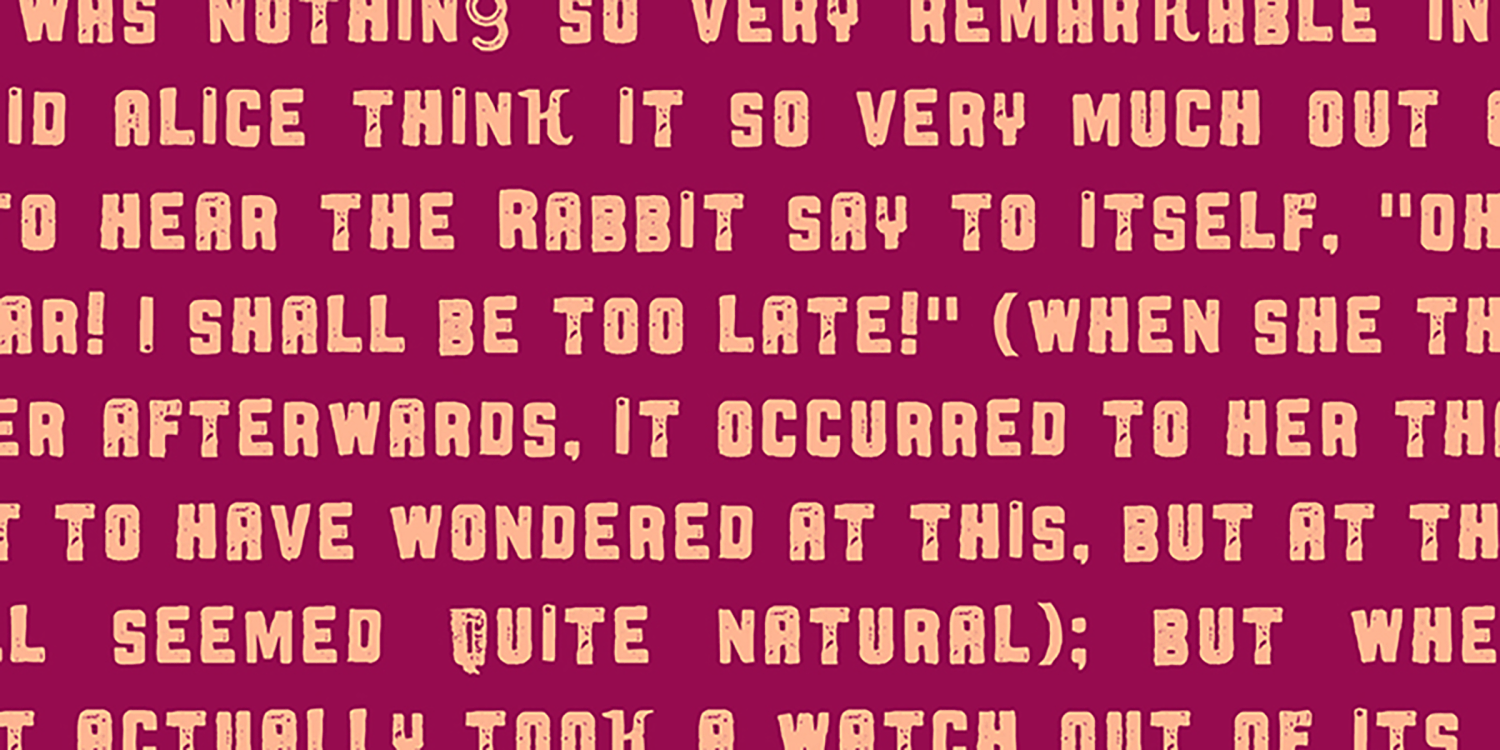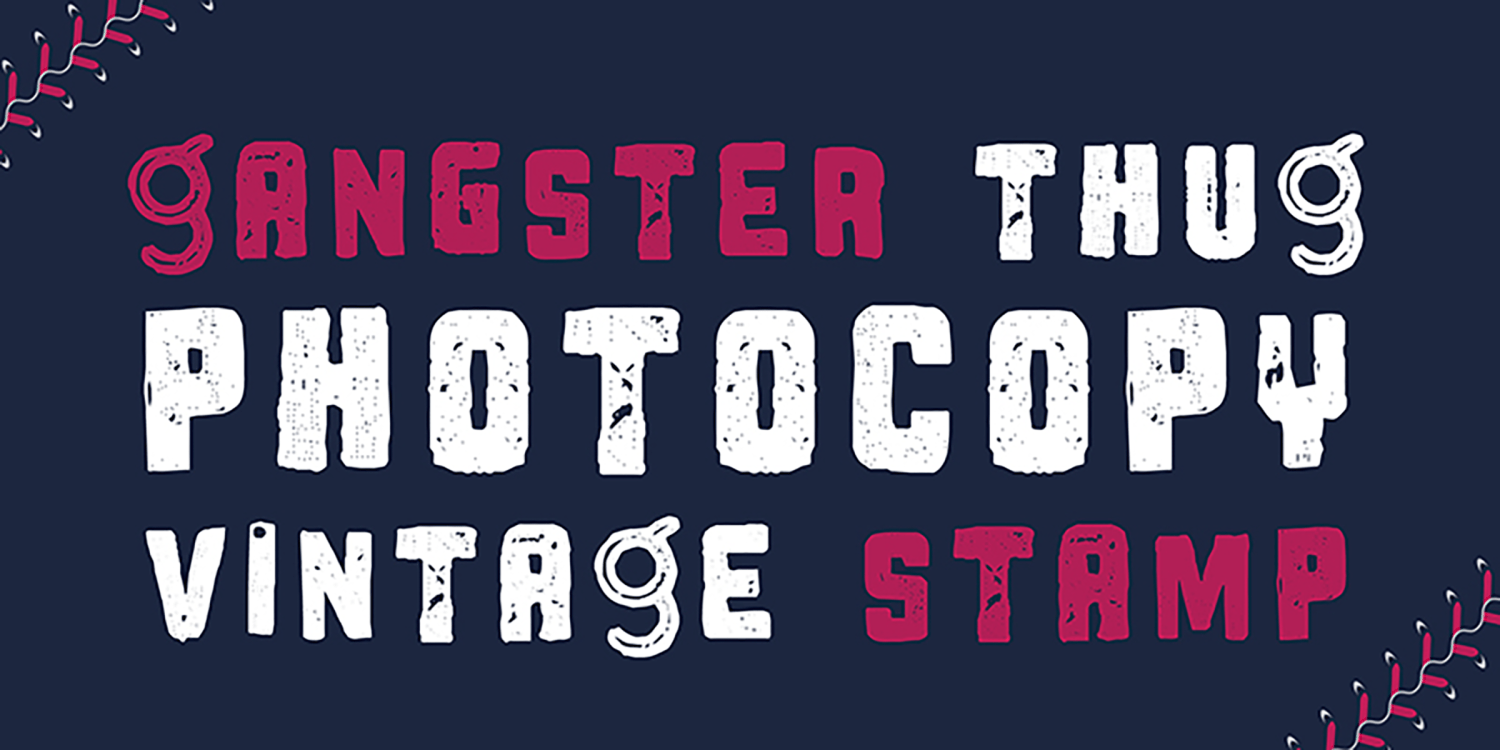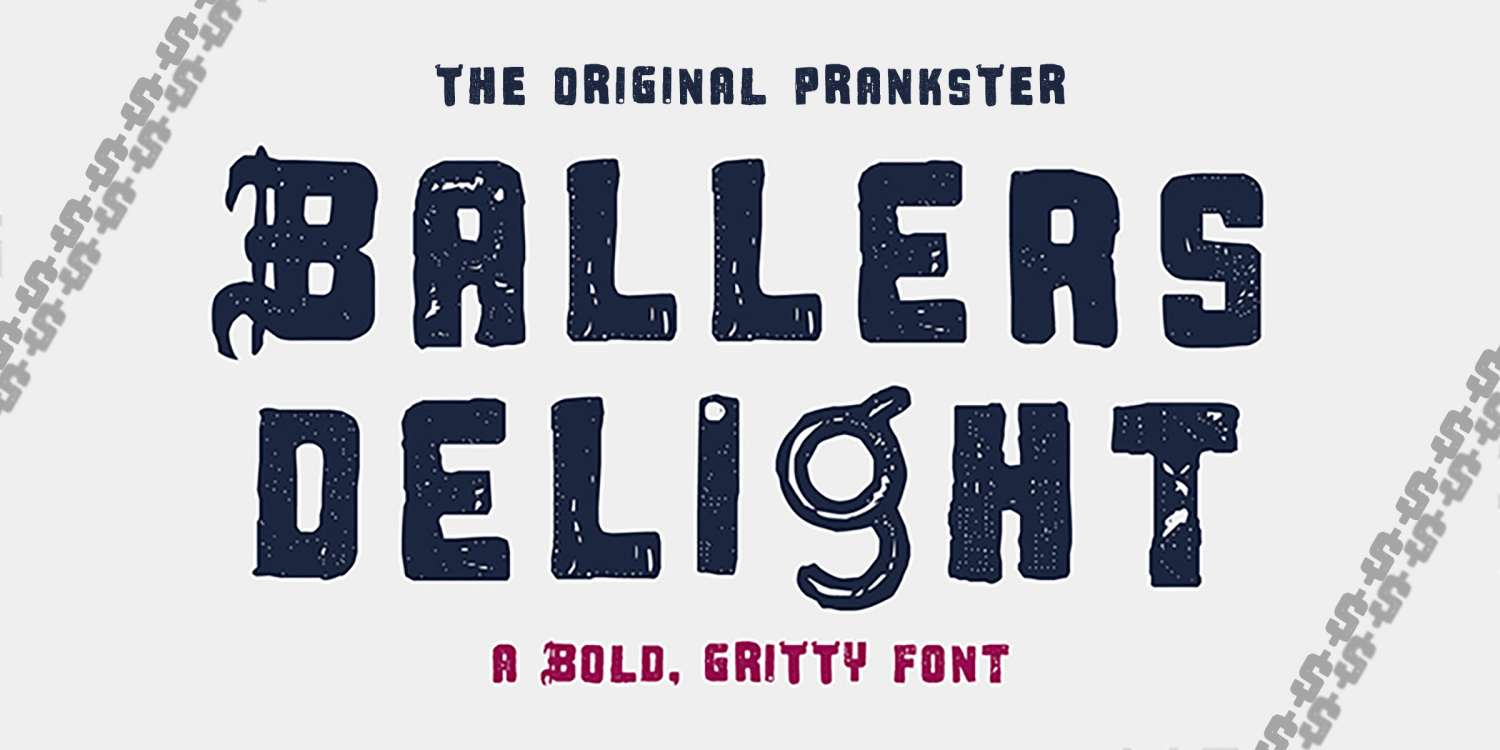
Ballers Delight
Ballers Delight is a big, brash headline font inspired by hip hop, costume jewelry and street grit. It was assembled by a group of volunteers at a fontmaking workshop in Atlanta, GA in 2007, where each letter was hand-crafted one at a time out of precious sparkling materials. It's got a dirty punk aesthetic, but an industrial heavy rhythm that makes a huge impact when used sparingly at large sizes. The flavor is decidedly modern, but the vibe is OG. Like shouting through a broken concrete megaphone.